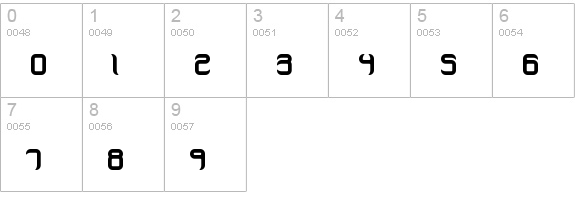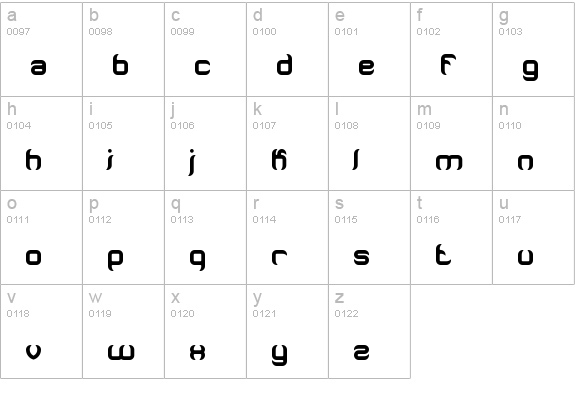
Jeopardize Thick BRK Font Details
Jeopardize Thick BRK font is a bold and eye-catching typeface that commands attention with its strong and dynamic appearance. Its thick, heavy weight gives it a commanding presence that is perfect for headlines, titles, and other prominent text in your designs. The sharp edges and distinctive style of this font make it a great choice for projects that require a bold and impactful look. The best part about Jeopardize Thick BRK font is that it is available for free download at FontsMarket.com. This means you can easily add this striking typeface to your collection without any cost, making it a valuable resource for your design projects. Whether you're working on posters, banners, logos, or any other creative project, Jeopardize Thick BRK font is sure to make a bold statement and elevate your designs to the next level. Download it today and start using this powerful font in your projects!